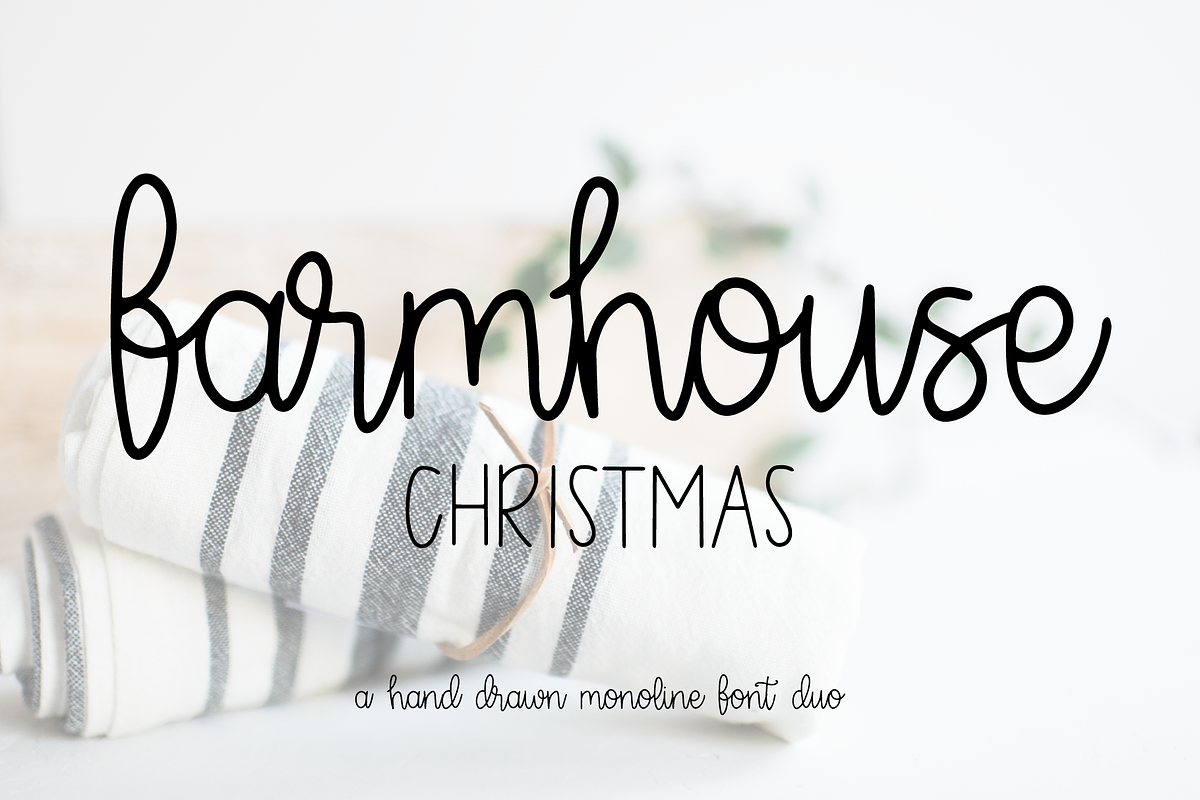
Farmhouse Christmas Script Font Free Download is a charming and festive handwritten typeface designed to bring warmth and joy to your holiday projects. With its cozy, rustic feel and elegant script, this font is perfect for Christmas cards, gift tags, holiday branding, and seasonal decorations.
Its flowing, handwritten style evokes the warmth and personal touch of the holiday season, while its clean design makes it versatile for a range of Christmas-themed designs. Whether you're designing invitations, posters, or festive social media content, this font adds a cozy, heartwarming feel to your work.